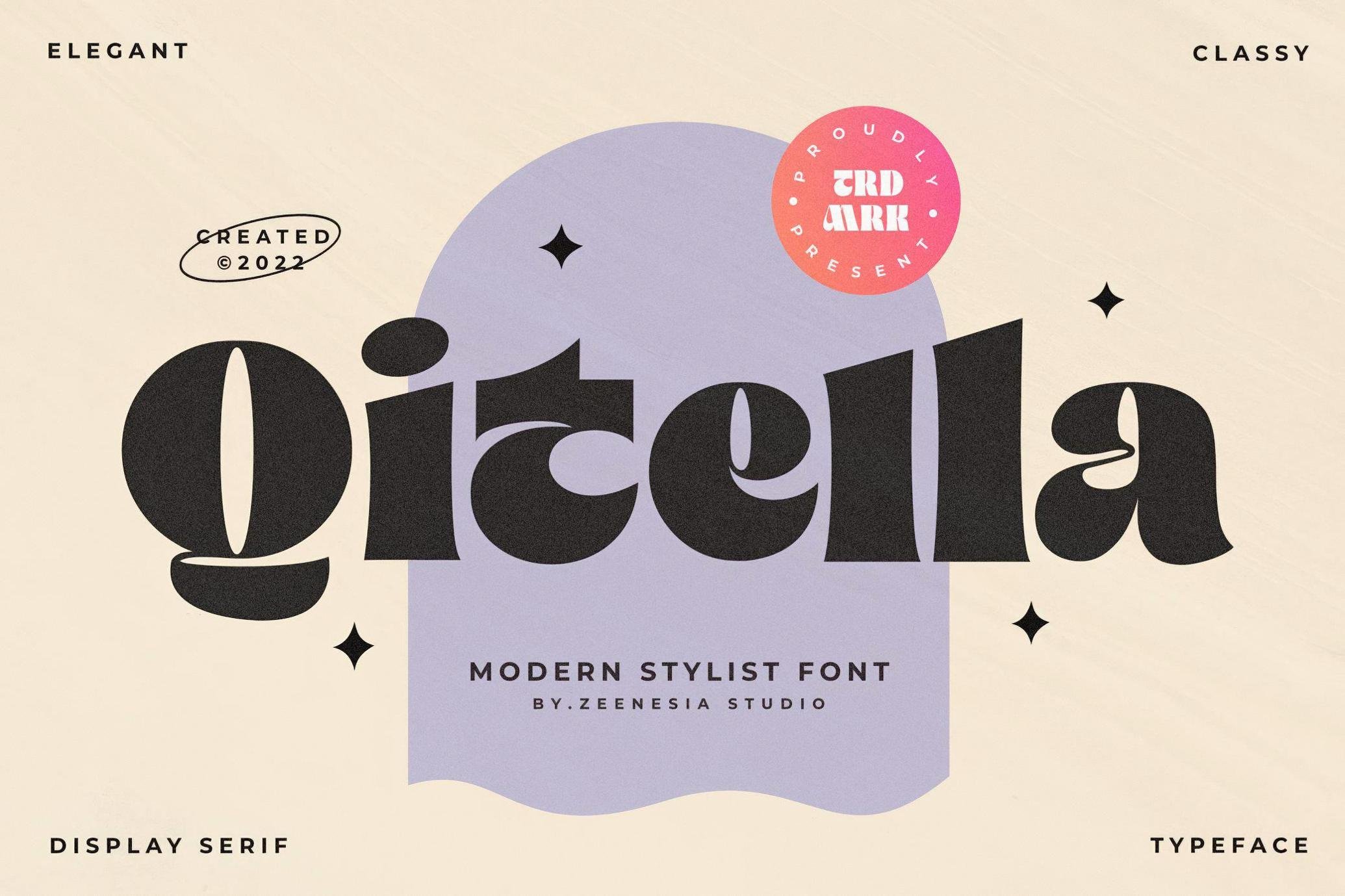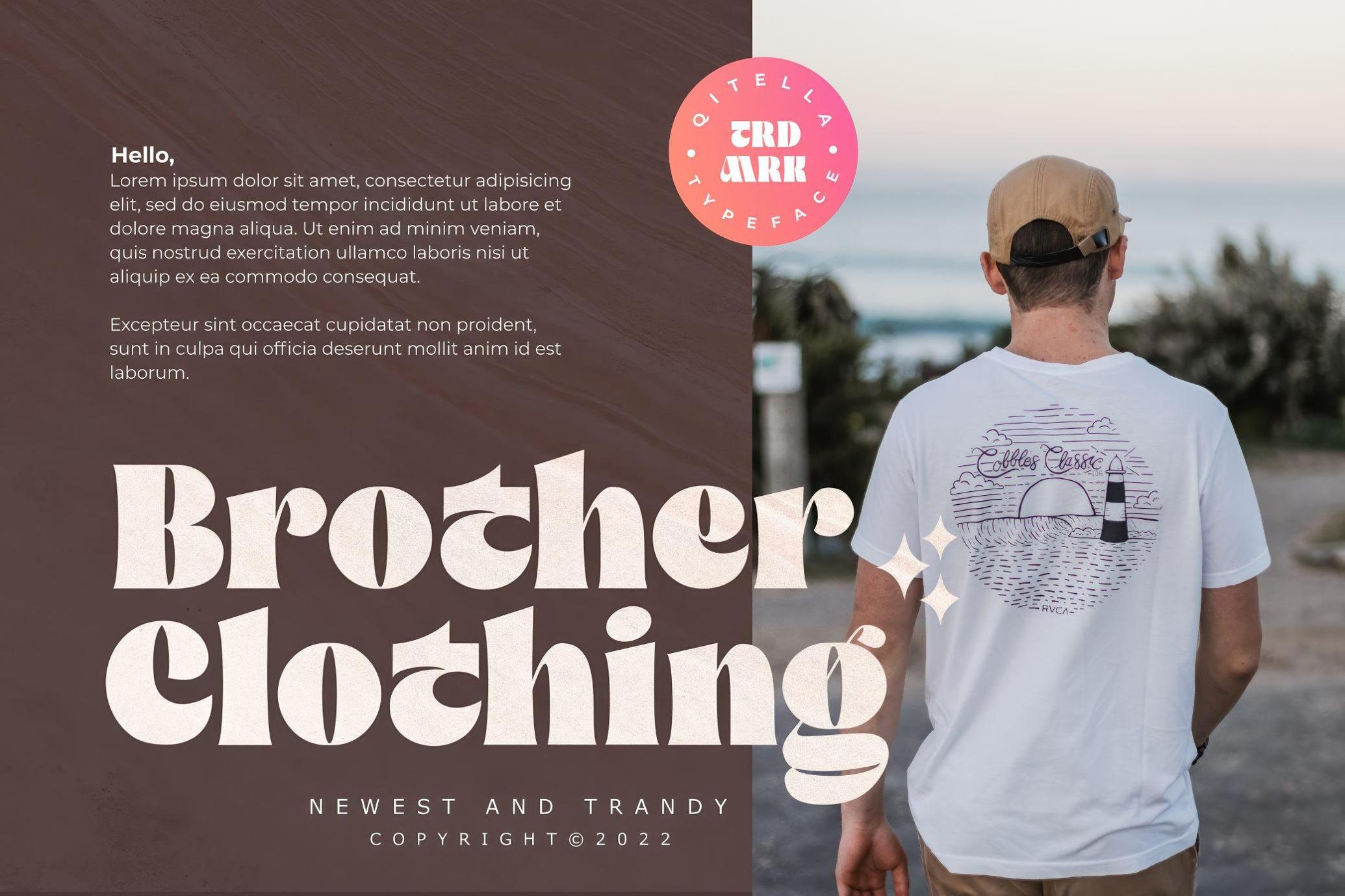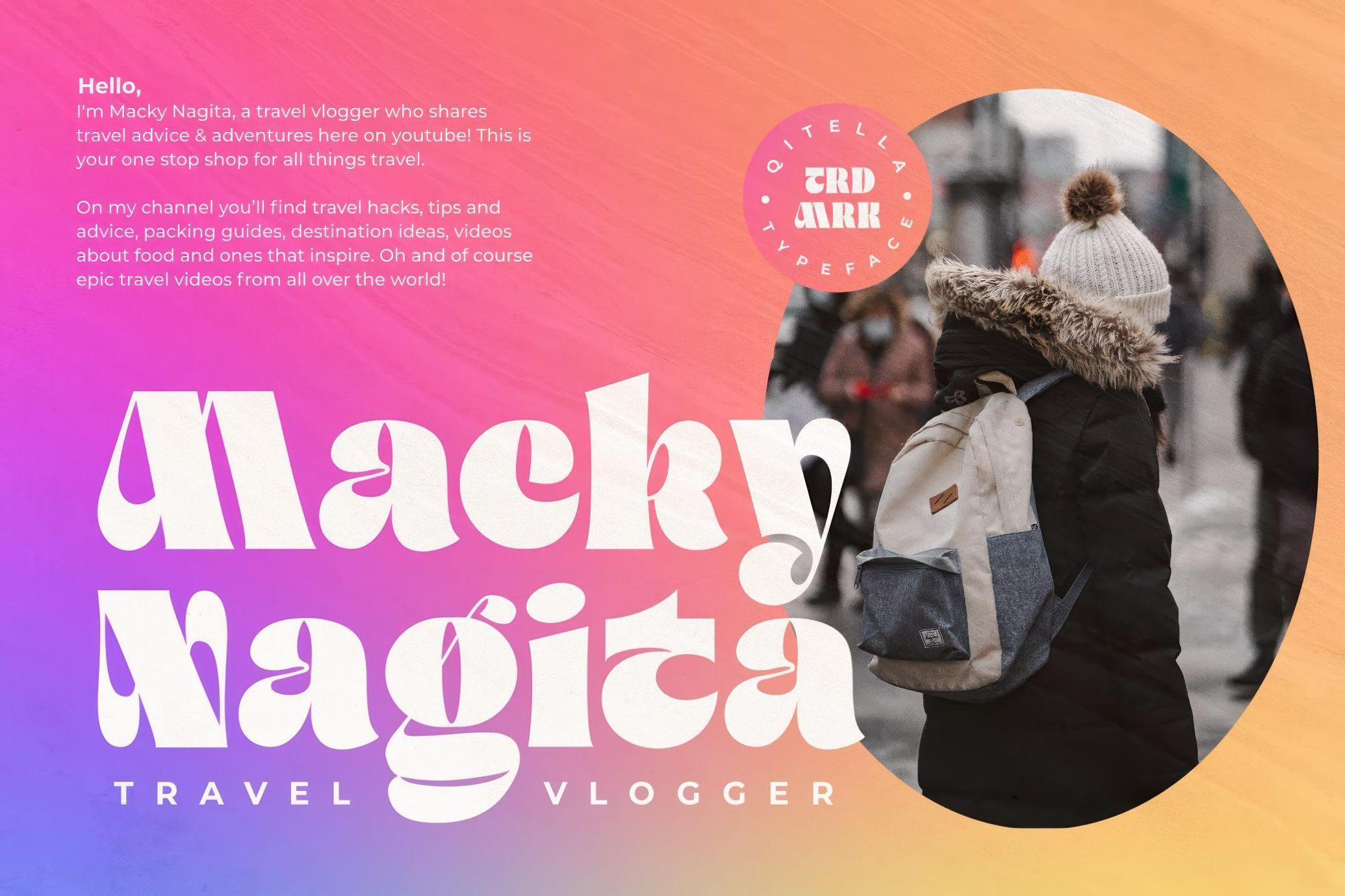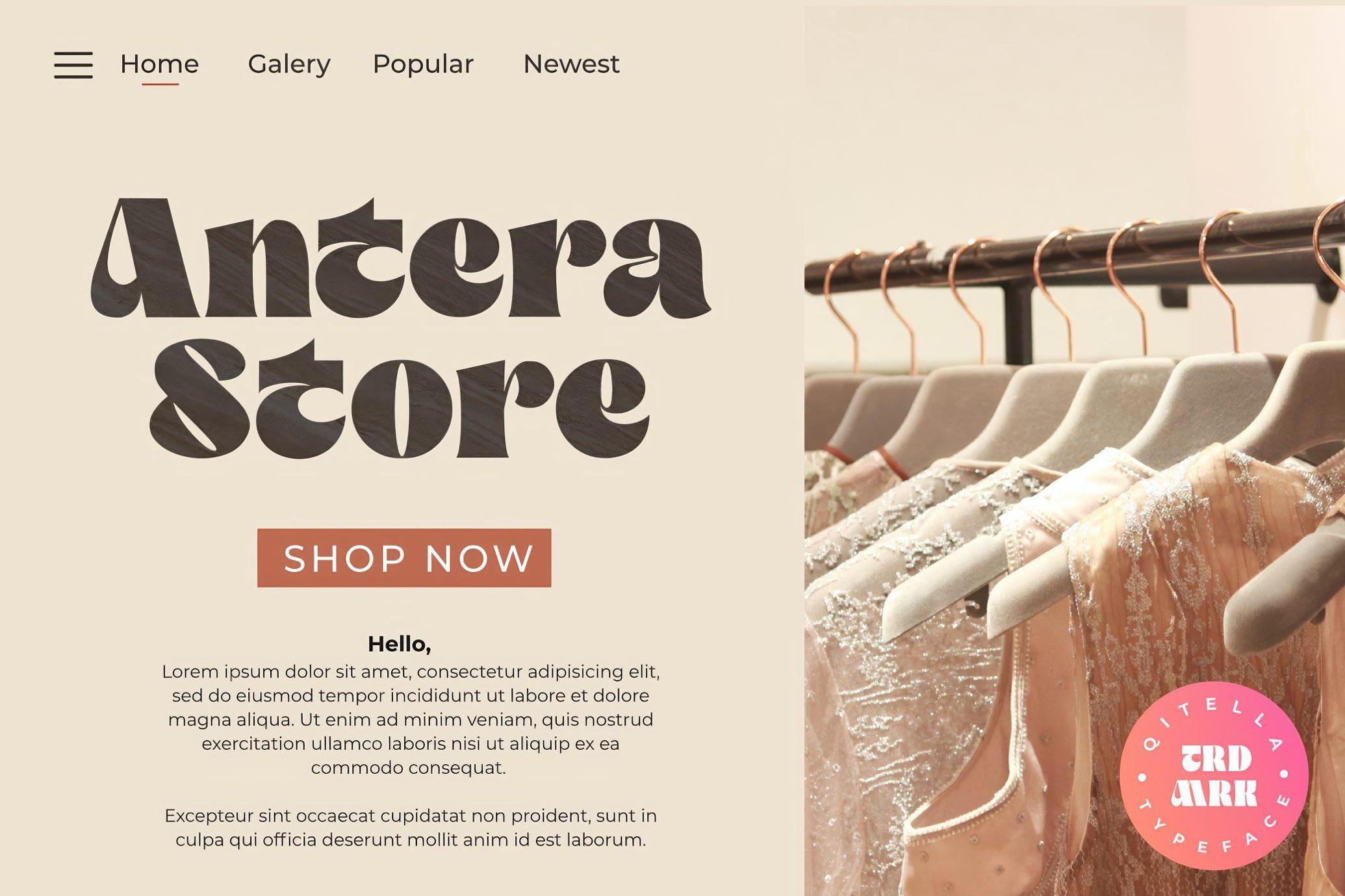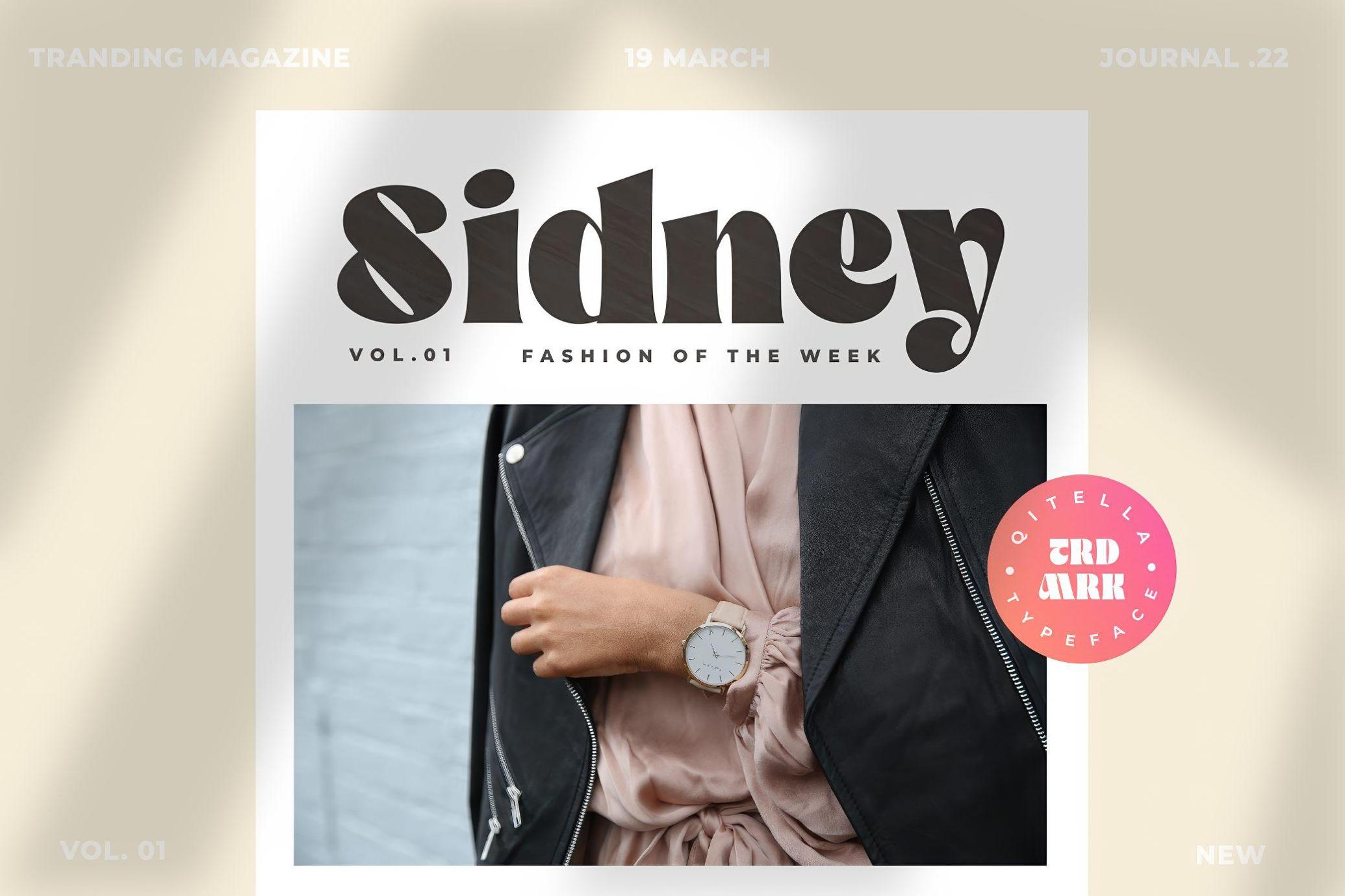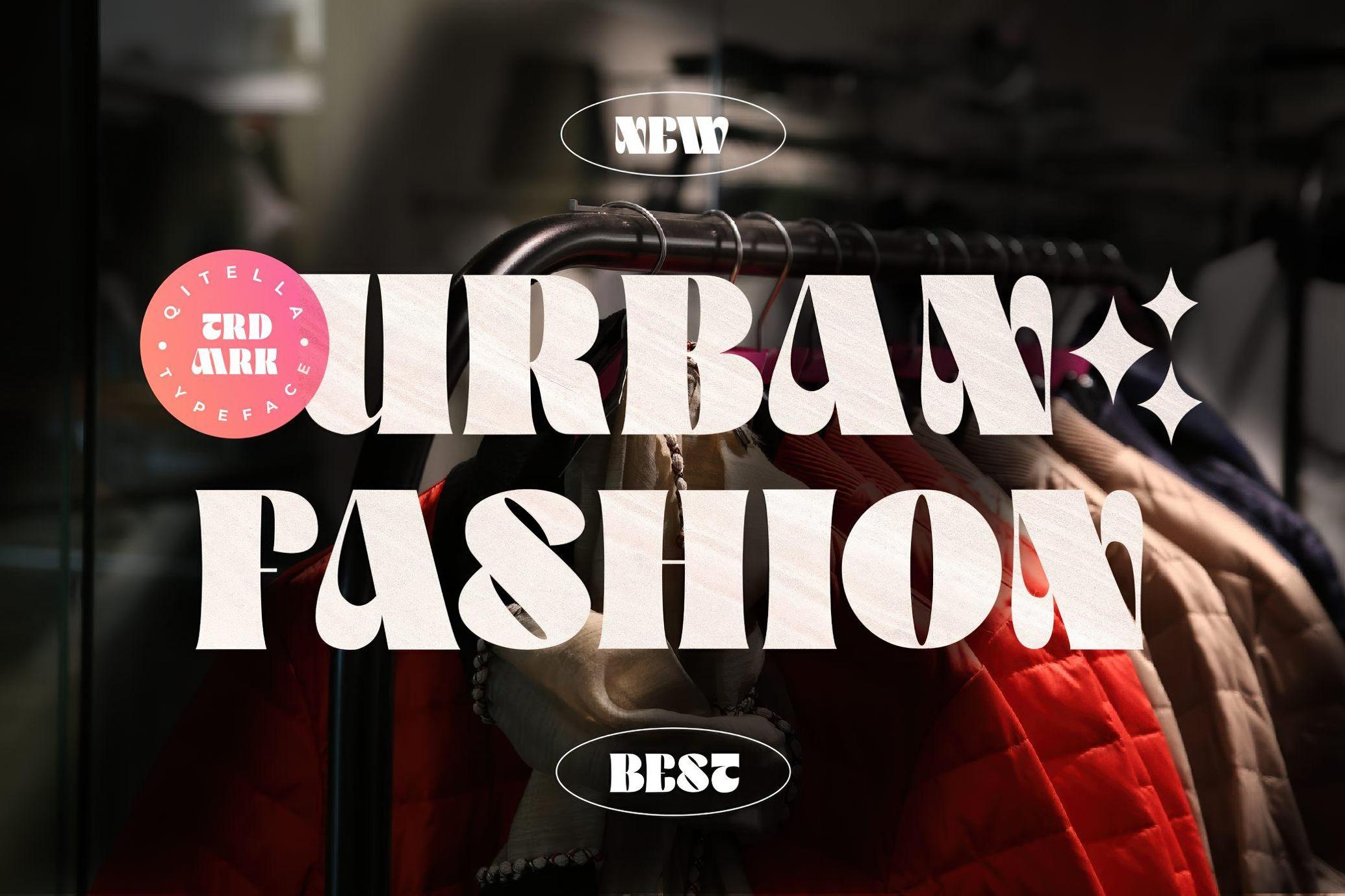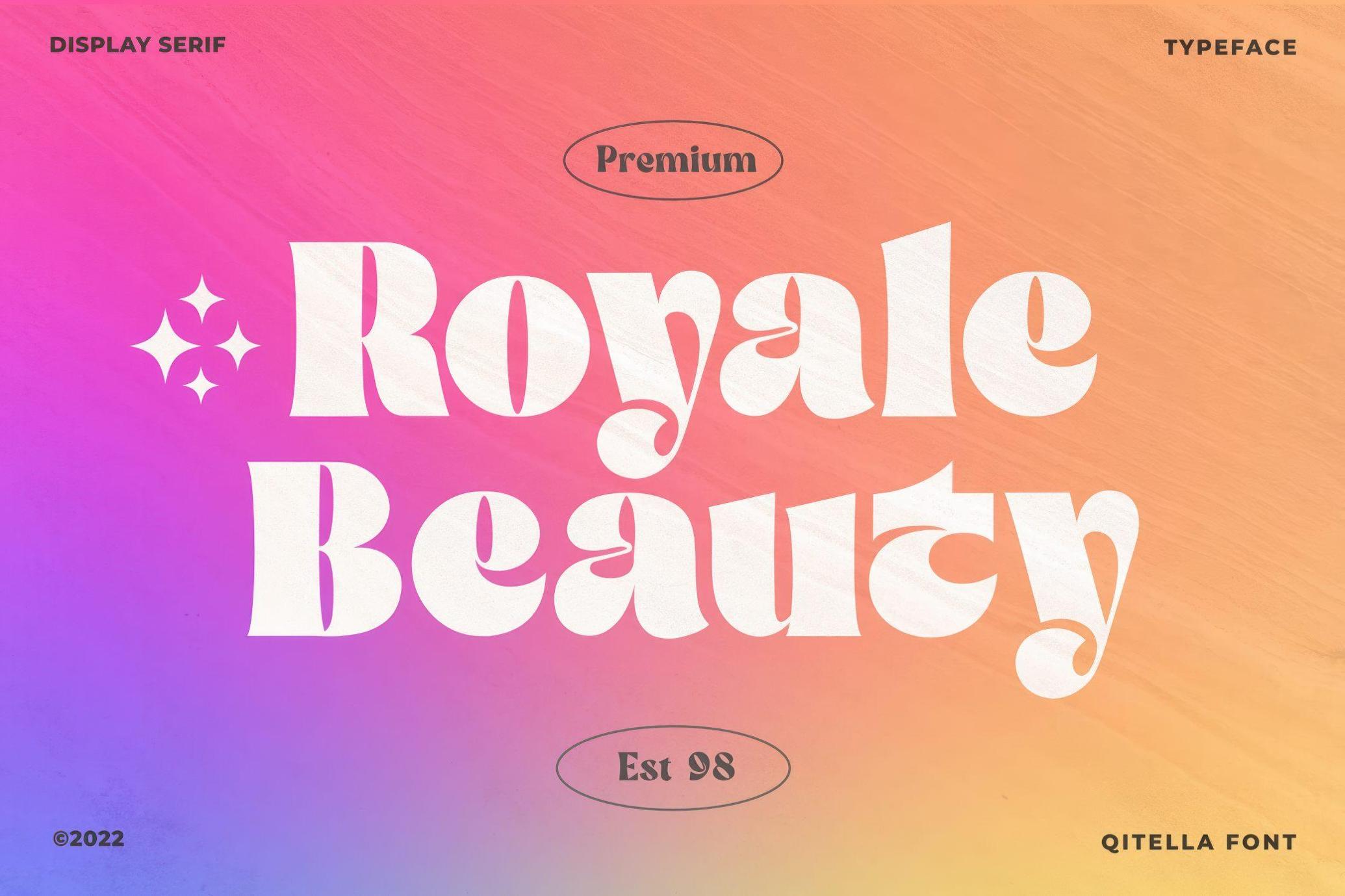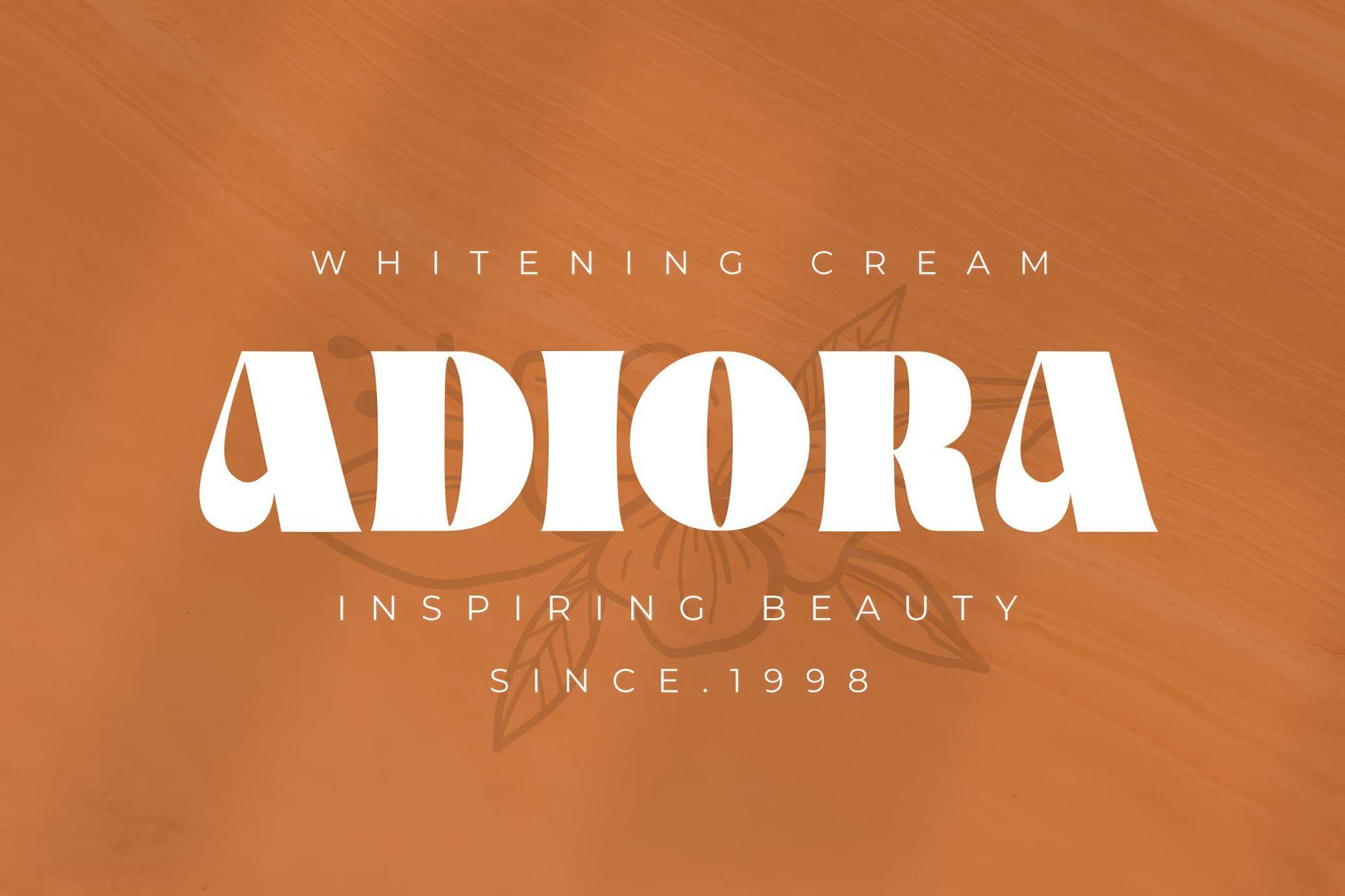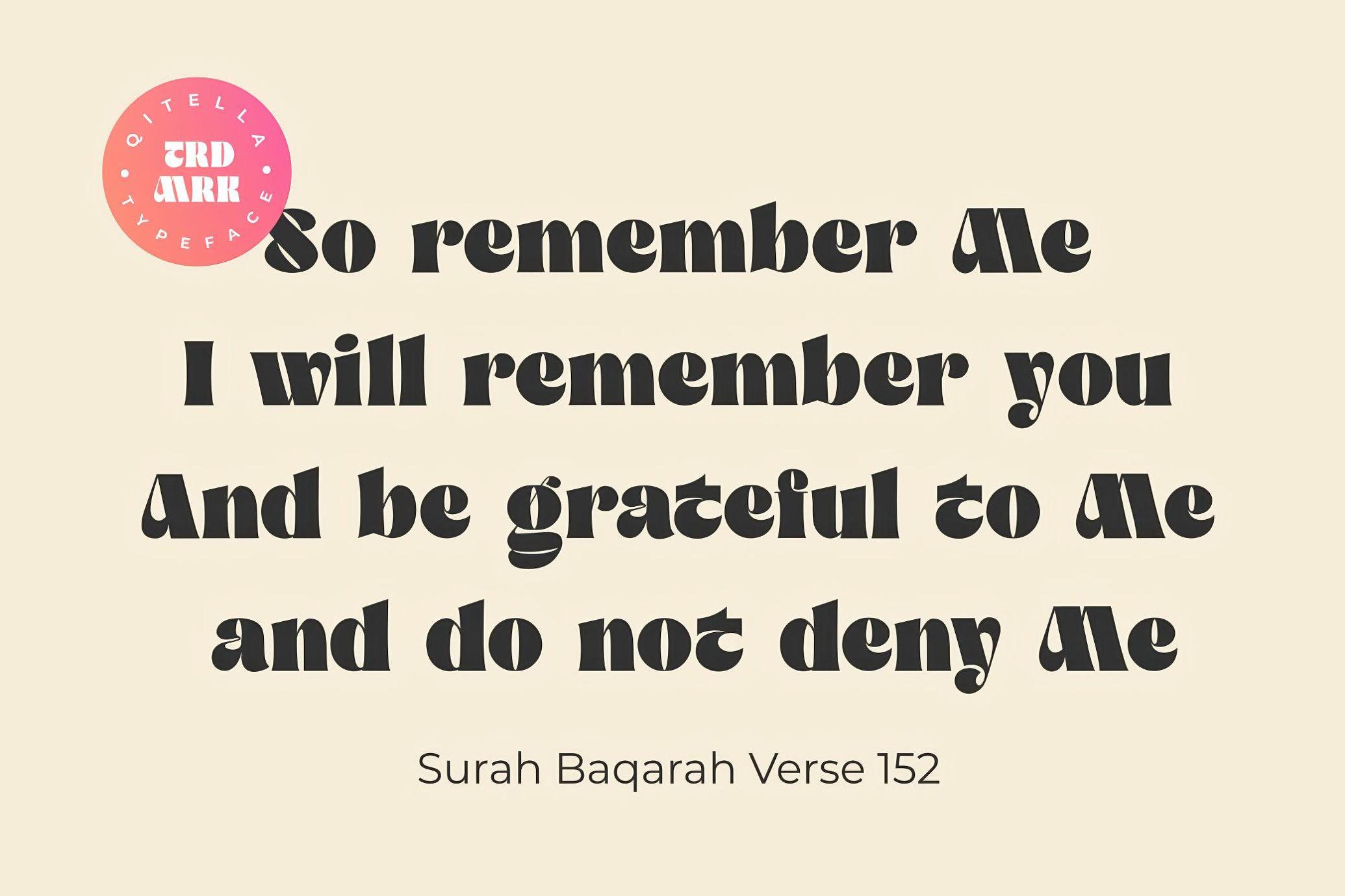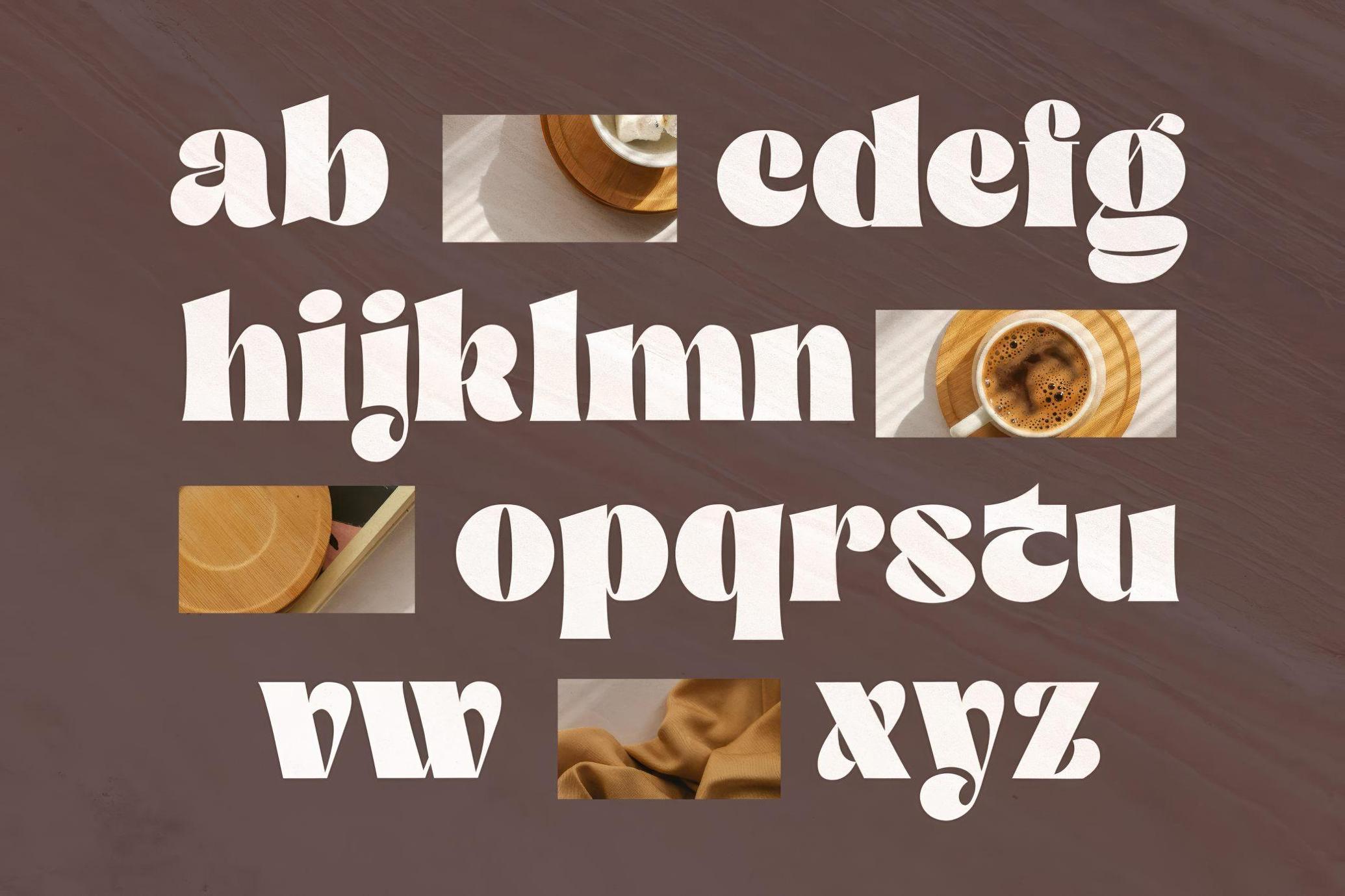
Qitella Modern Stylist Font
Qitella
Qitella is a bold display serif with sculptural contrast and flair. Its heavy strokes are offset by soft curves and stylized cuts, ensuring the deliberate, poster-like presence. The geometric rhythm makes it especially striking at large sizes, where its character truly lands.